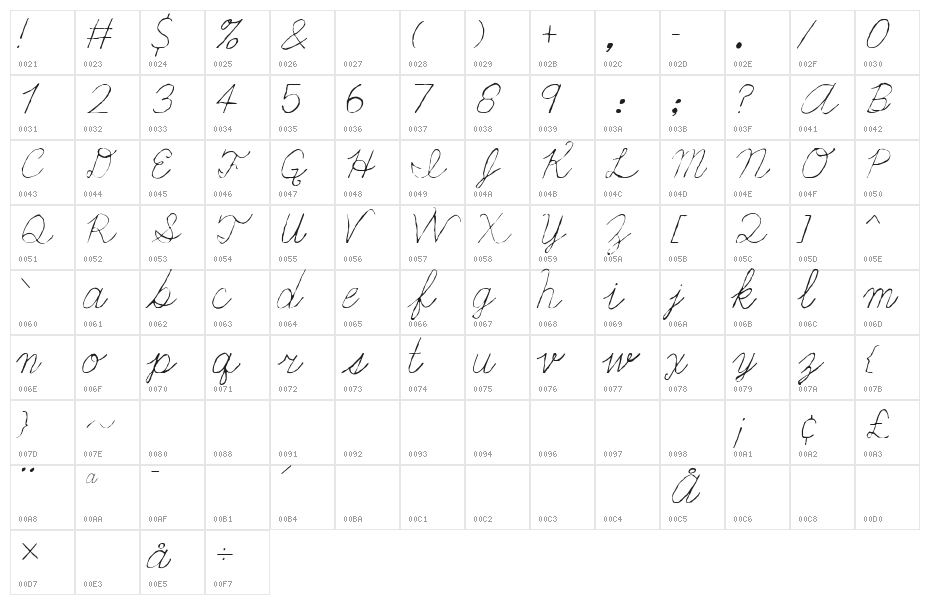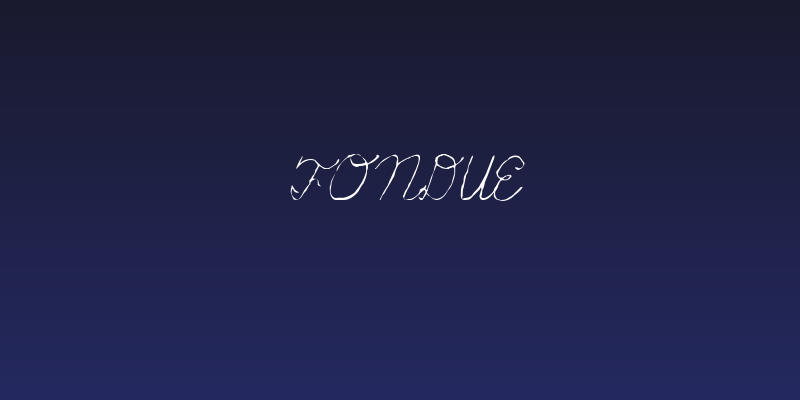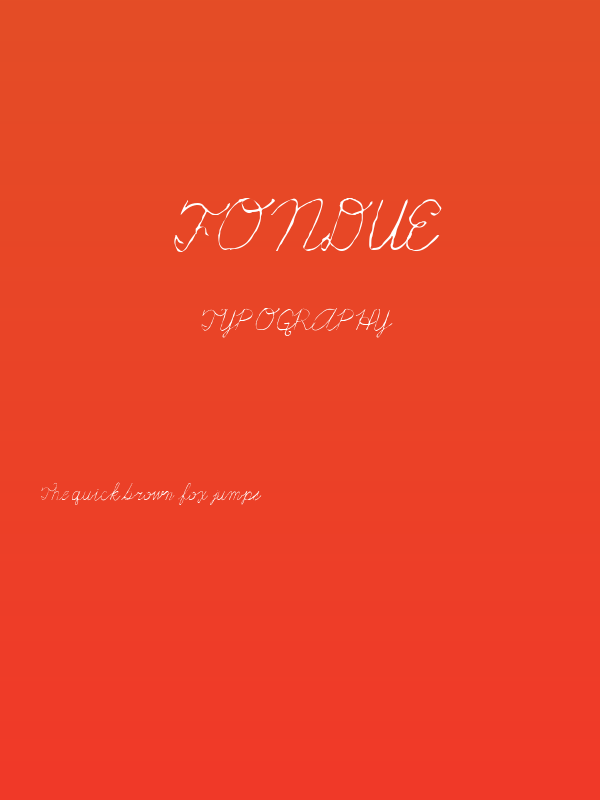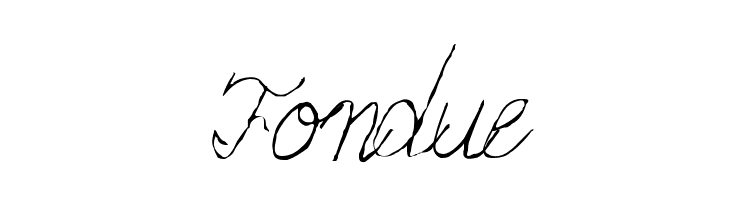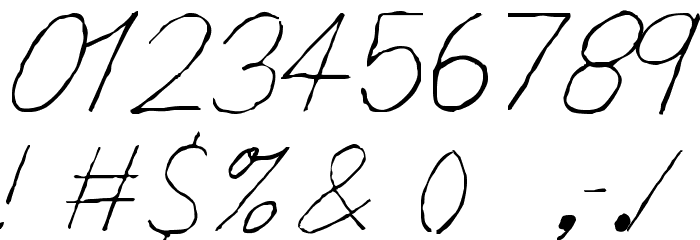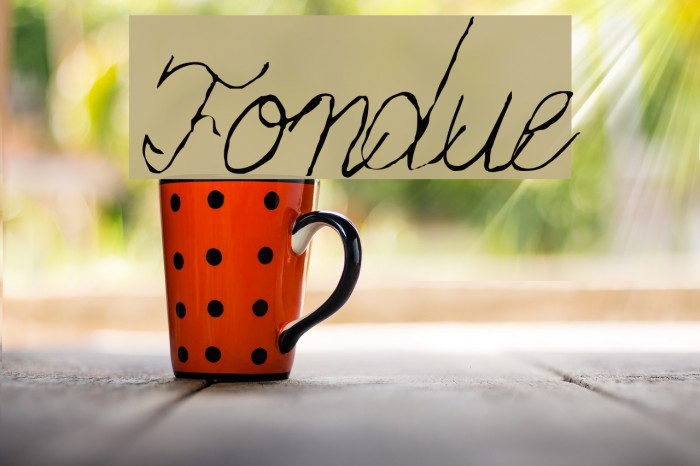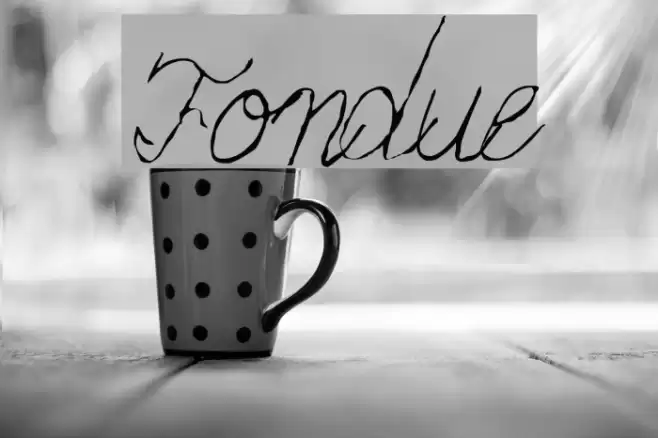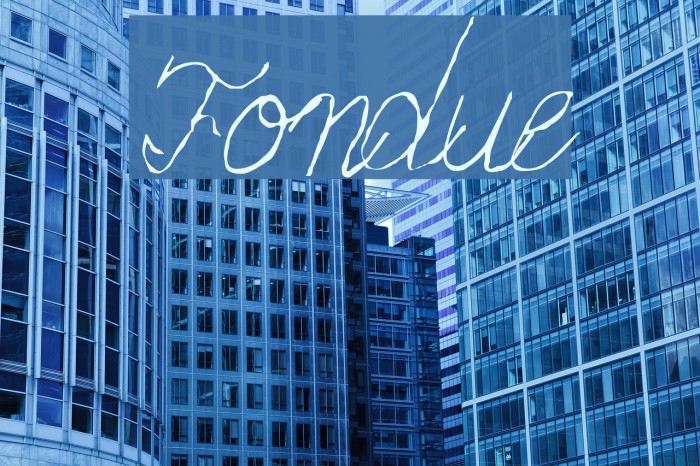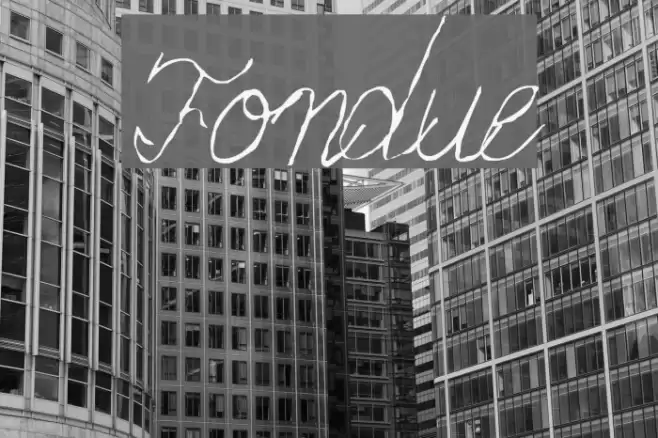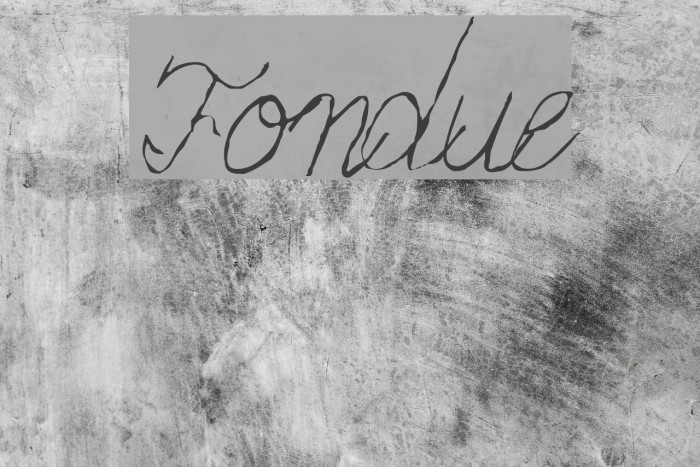
Fondue Font
Fondue Description
This font exudes a charming handwritten style, characterized by its fluid and continuous strokes that mimic natural handwriting. The letters are elegantly connected, creating a seamless flow that is both artistic and legible. The uppercase letters maintain a consistent height, while the lowercase letters exhibit a slight slant, adding to the casual and personal feel of the font. The numerals are distinct and clear, complementing the overall script style. Special characters are thoughtfully designed to match the aesthetic, making this font versatile for various uses. The strokes vary in thickness, providing a dynamic and lively appearance that enhances its handwritten quality.
| Use Case | Logos, Invitations, Artistic projects |
| Proposed Projects | Ideal for wedding invitations, personal branding, greeting cards, and artistic projects requiring a personal touch. |